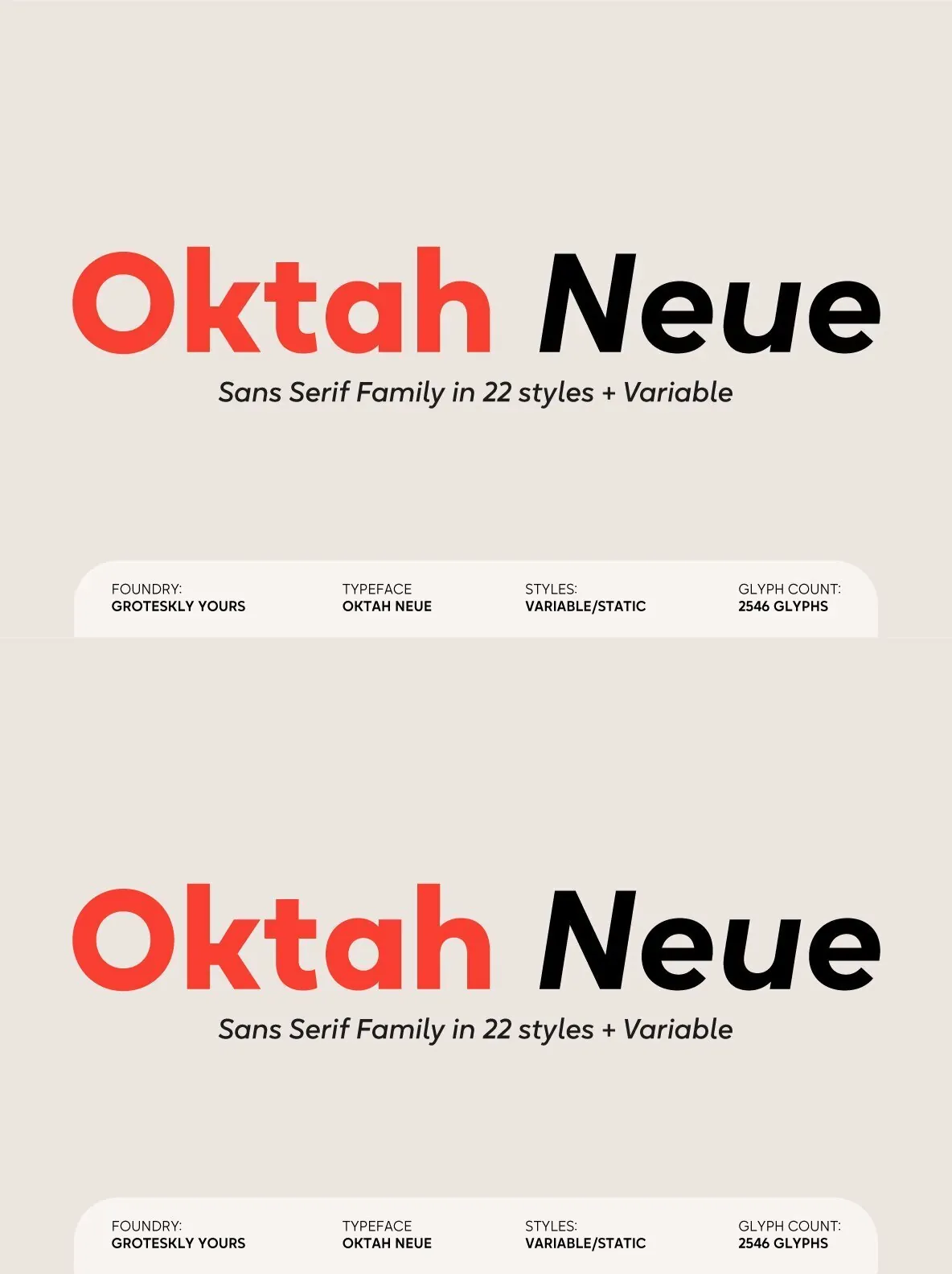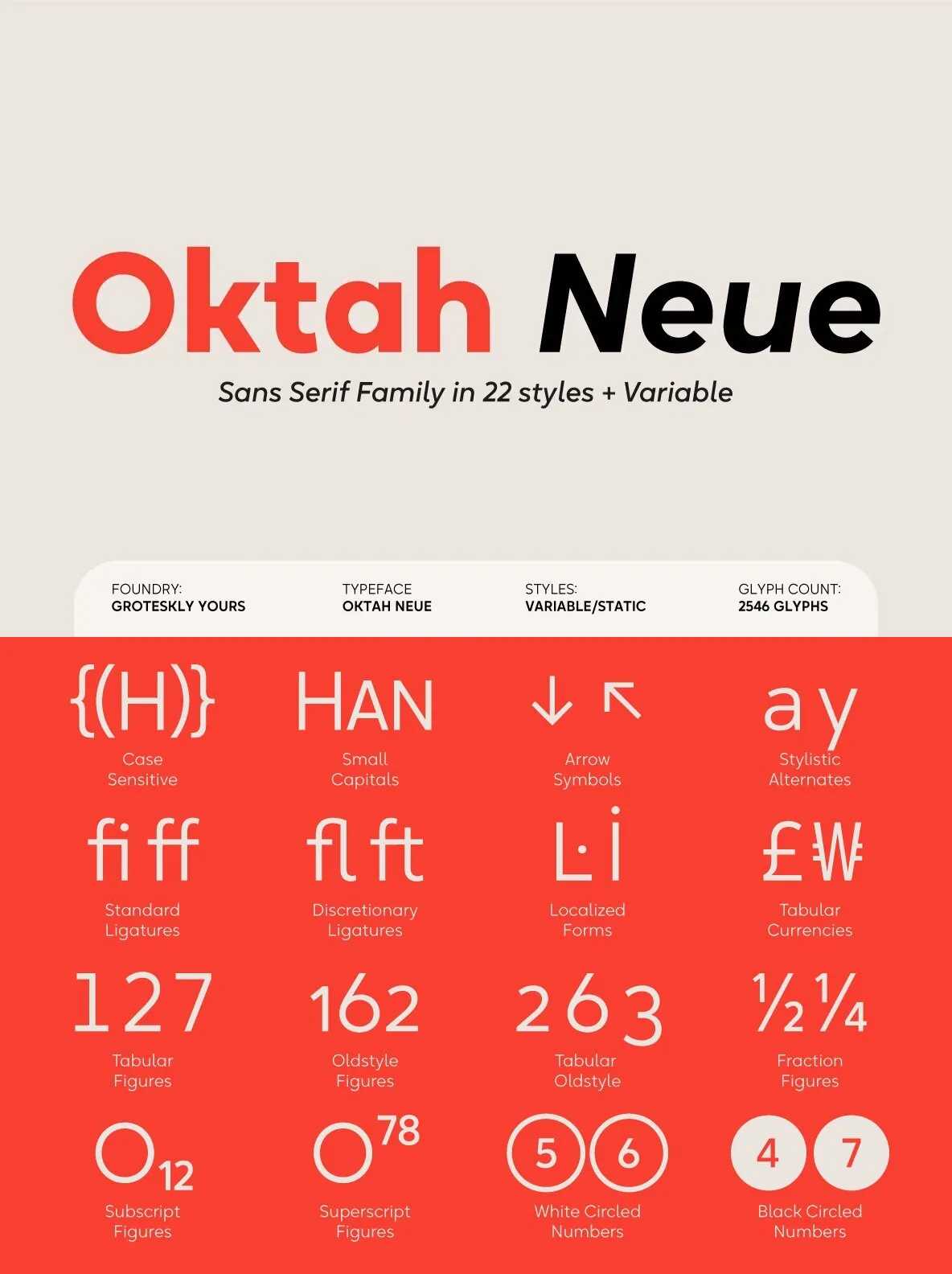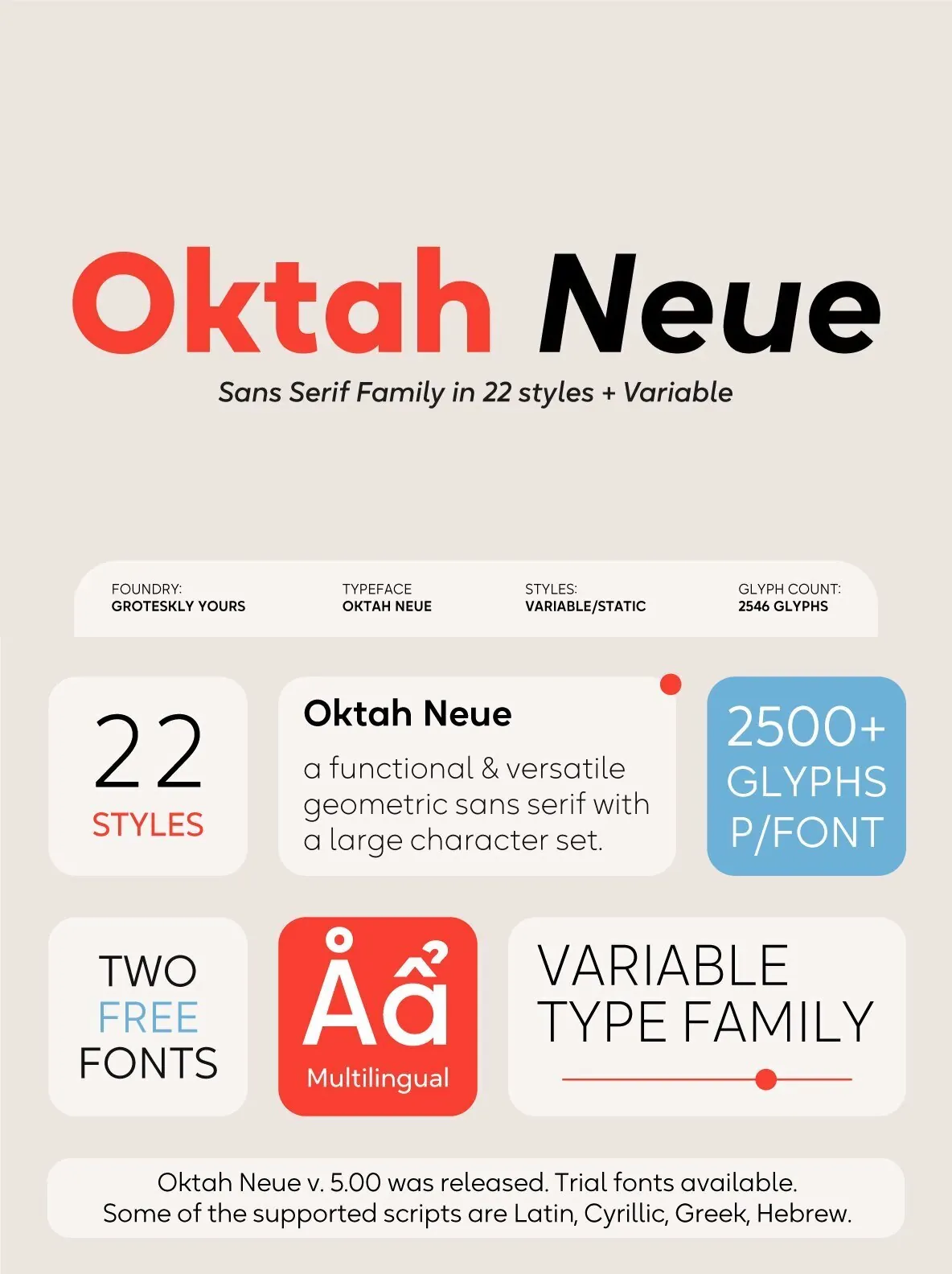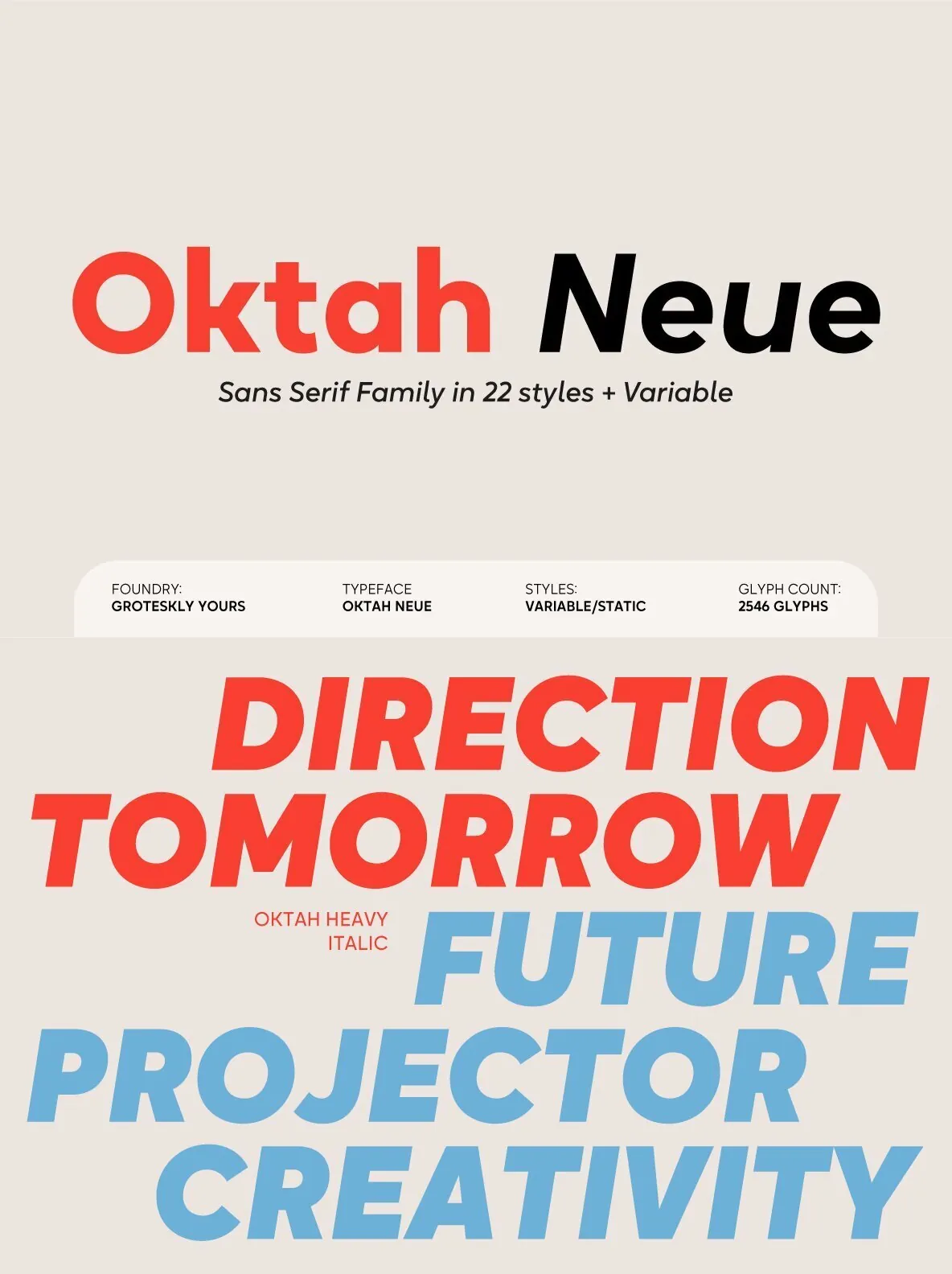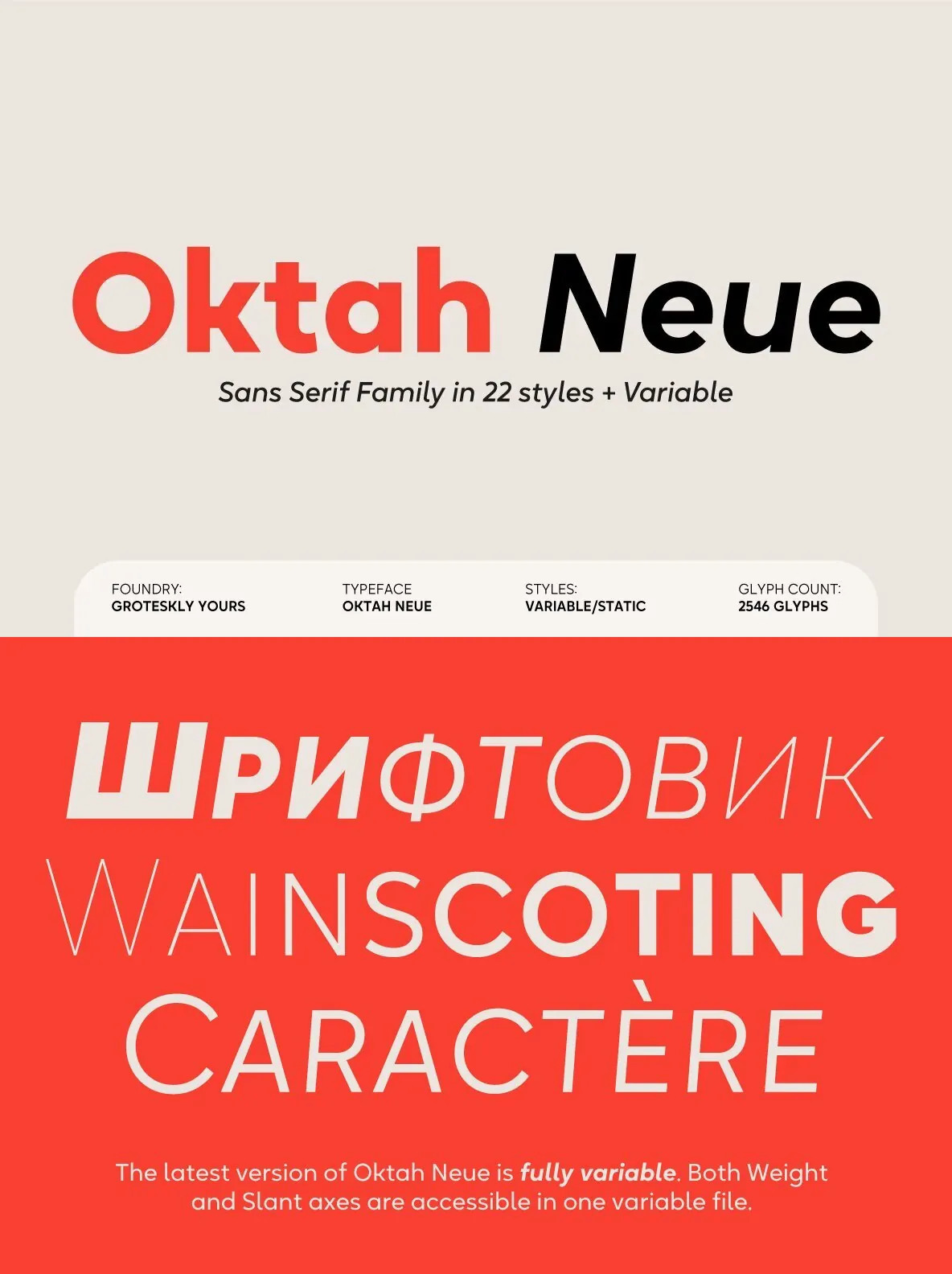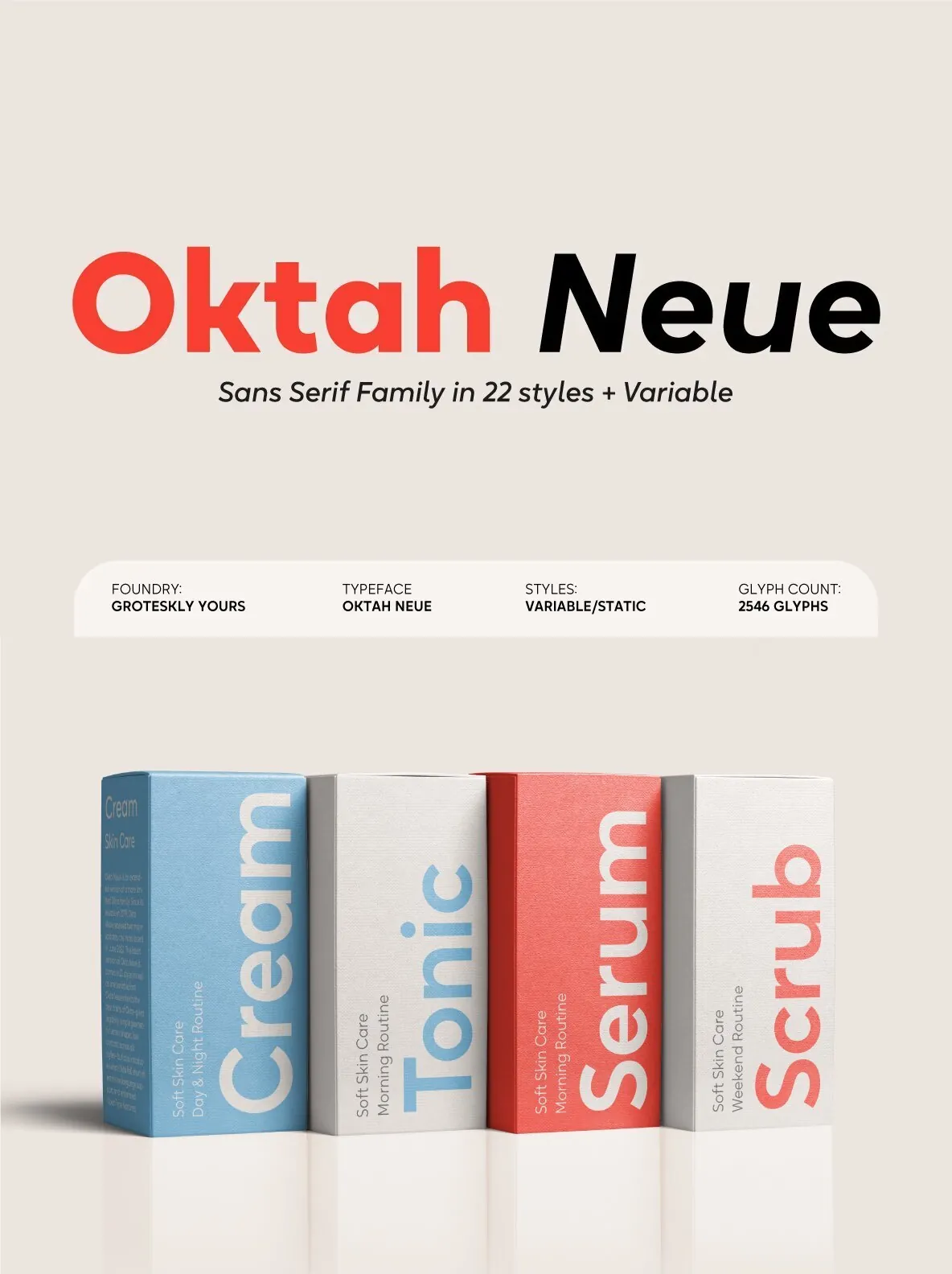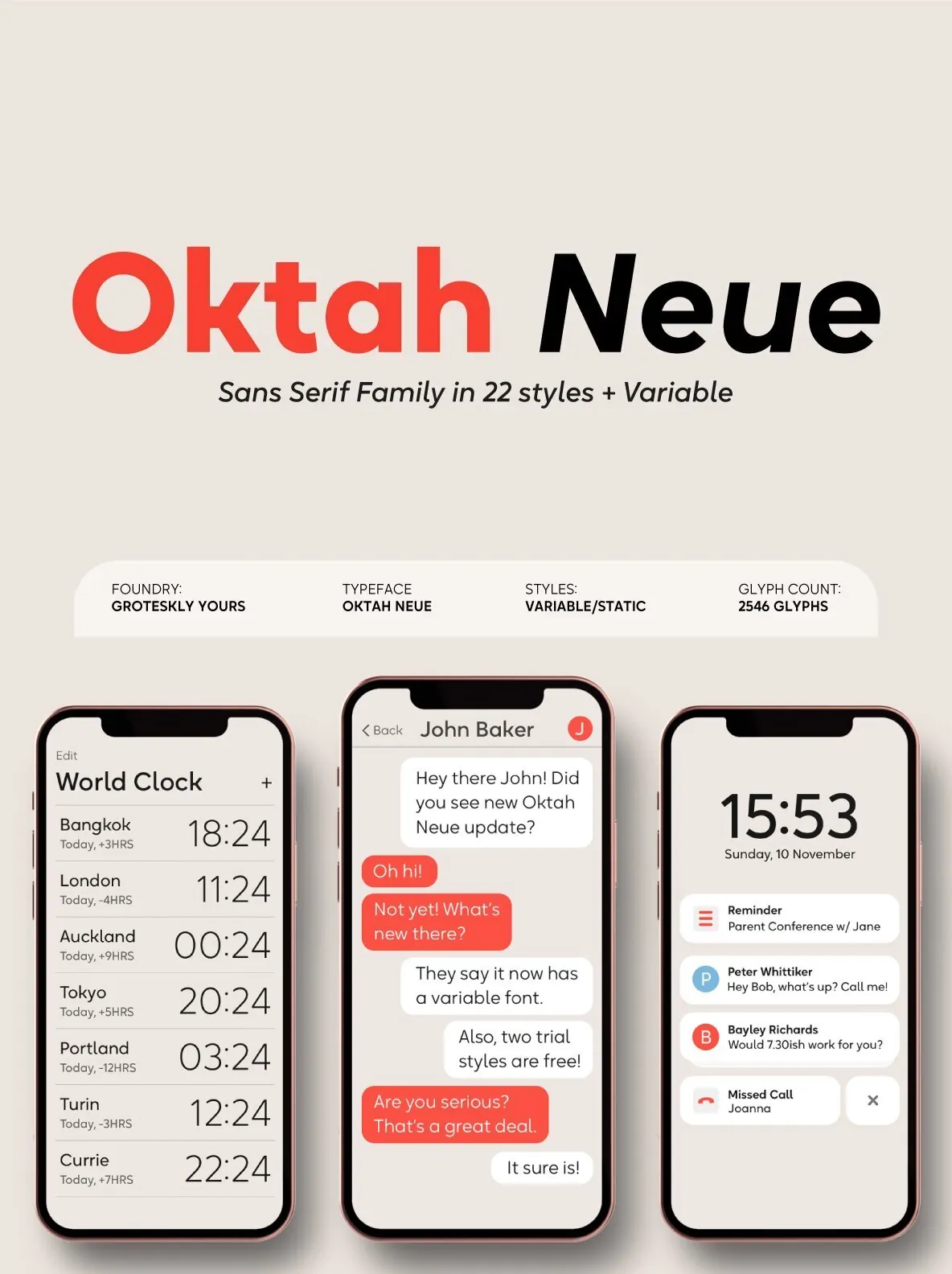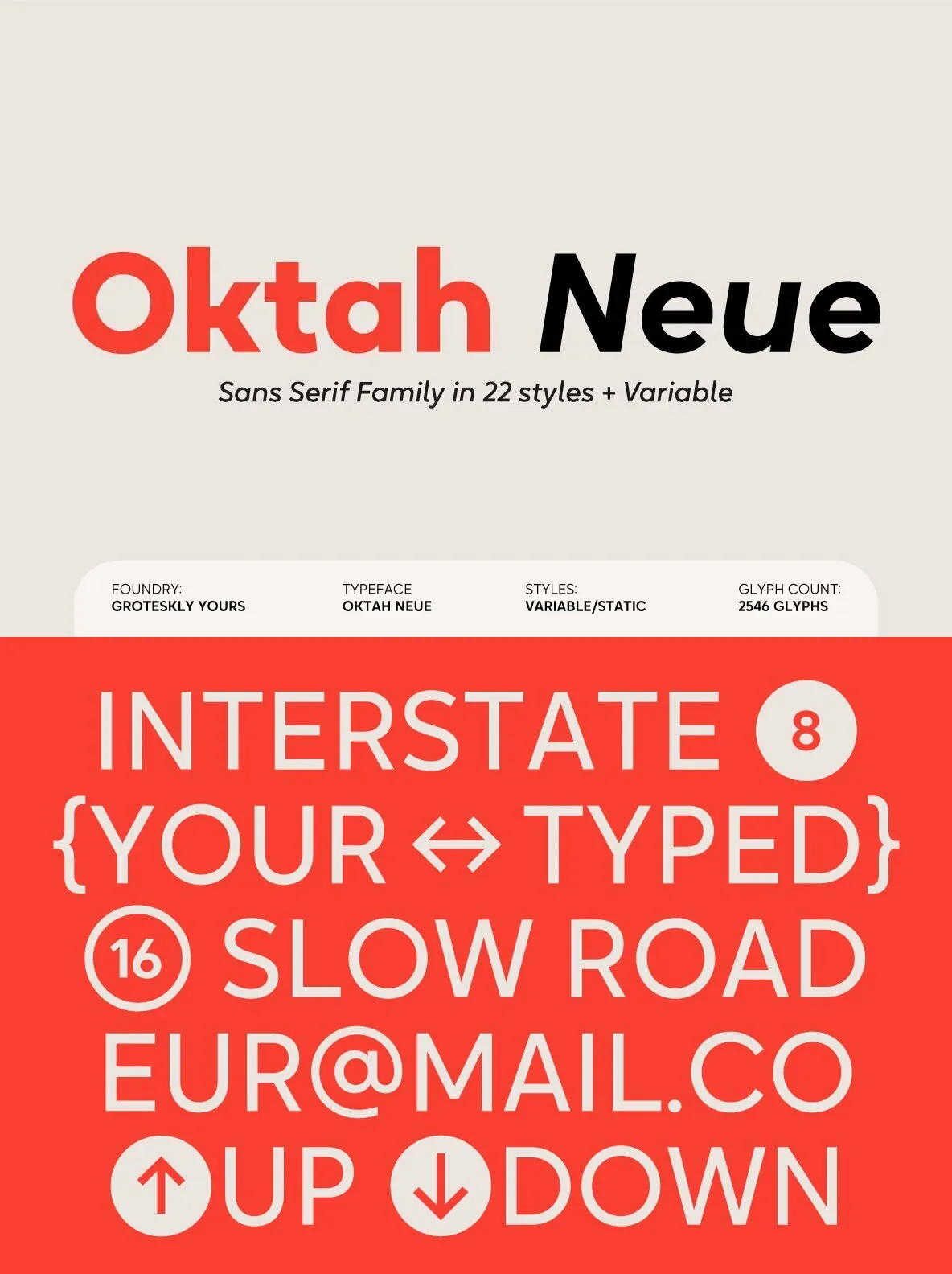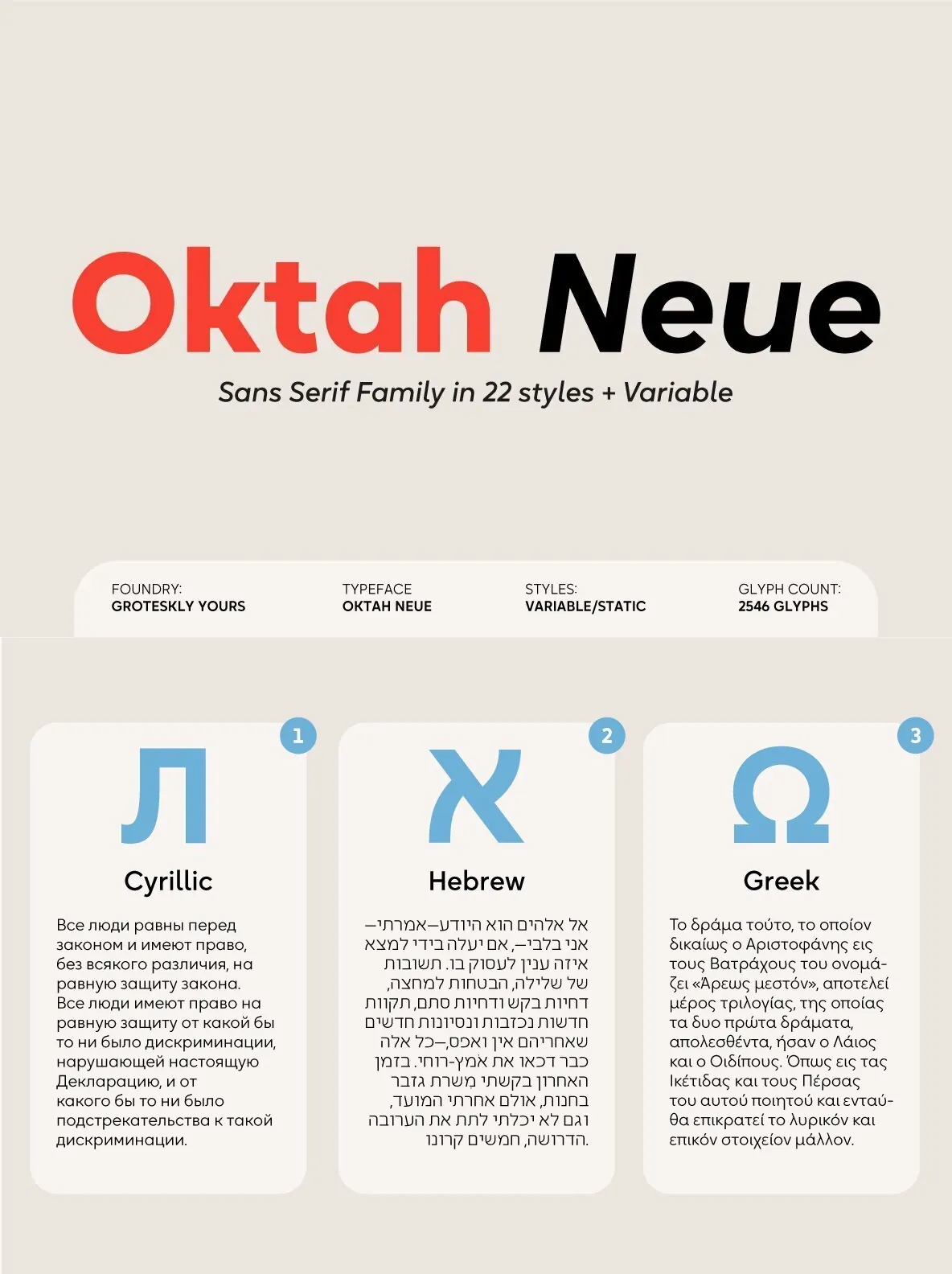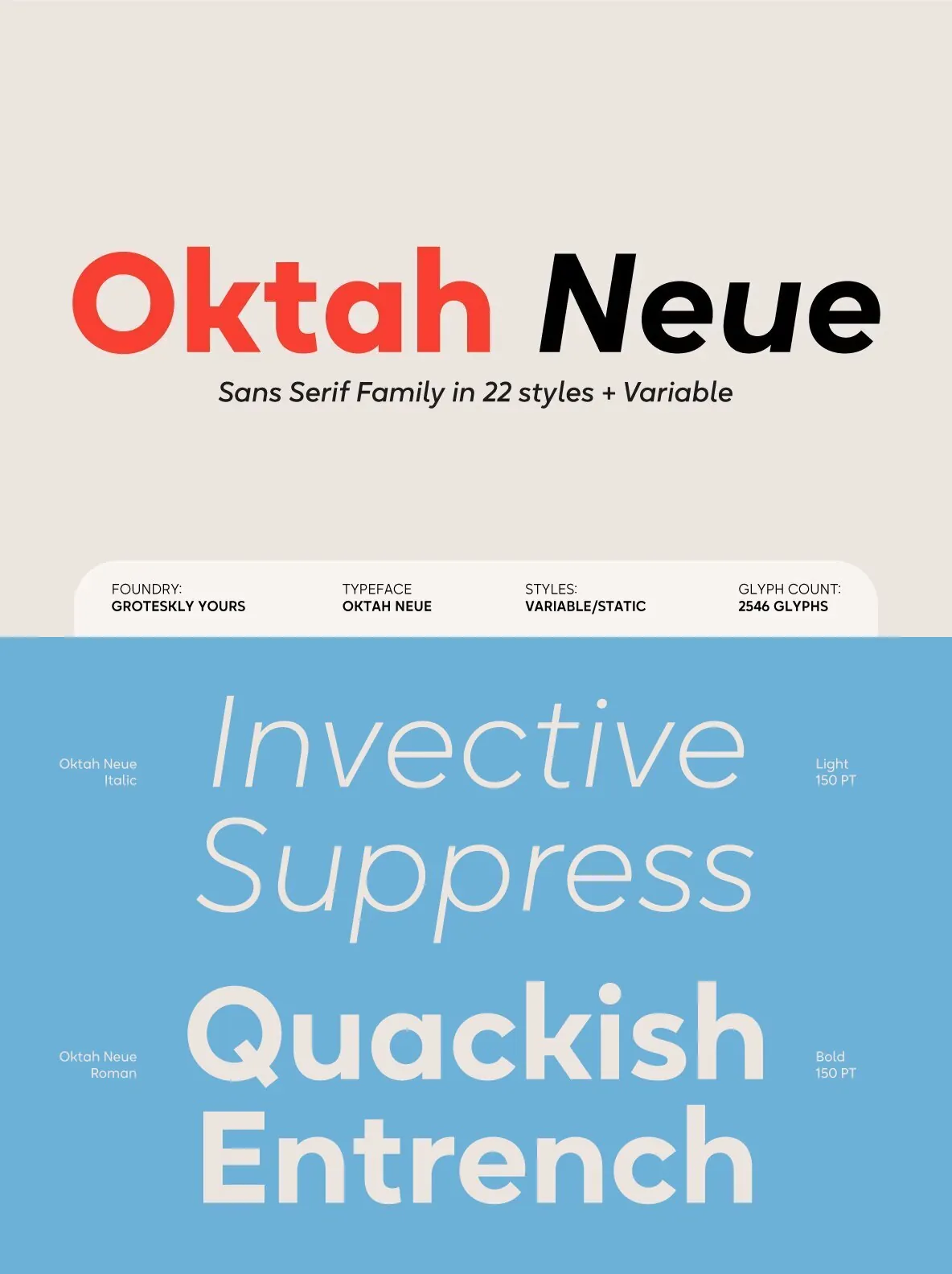
Oktah Neue Font
Oktah Neue — Neutral Geometry, Real Range
Oktah Neue is a geometric sans serif released in 2019 by Groteskly Yours. Since its release, it has received two major updates, with the most recent in June 2022. The latest version comes in 22 styles plus one variable font, built for clear typography where consistency and restraint matter.
It keeps the best traits of Oktah—great legibility, simple geometric letter shapes, and low contrast across all styles—while addressing what Oktah lacked: extensive language support and stronger OpenType functionality. The family aims for neutrality without losing its distinct voice. Some characters remain familiar; others were redrawn to better suit the wide implementation range of Oktah Neue.
Over time, the character set expanded to 2500+ characters. It includes Extended Latin and adds new systems: Extended Cyrillic, Greek (Basic and Polytonic), and Hebrew. The Cyrillic set also covers localised forms for Bulgarian, Serbian, and many others. Oktah Neue is well-kerned with more than 3000 kerning pairs and is automatically hinted. Two styles—Ultra Light and Black Italic—are available as free downloads. The variable font includes both axes, Slant and Weight, in a single file.
OpenType Features
Alternatives
Contextual alternatives
Stylistic sets
Adjustable height of punctuation and symbols as you type
Small Caps (all listed languages, numerals, and symbols)
Proportional Lining figures
Oldstyle figures
Tabular Oldstyle figures
Subscript
Superscript
Fractions
Two sets of circled numbers